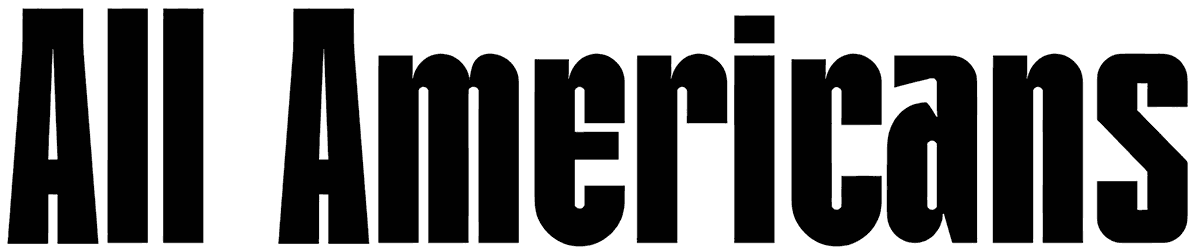
Willump Font
If you want to make an eye-catching and serious headline, Willump might be what you need. This one is a sans serif font with a bold and big design and gives a formal and powerful tone to your text. You can use it for any news headlines movie titles, or any formal text.